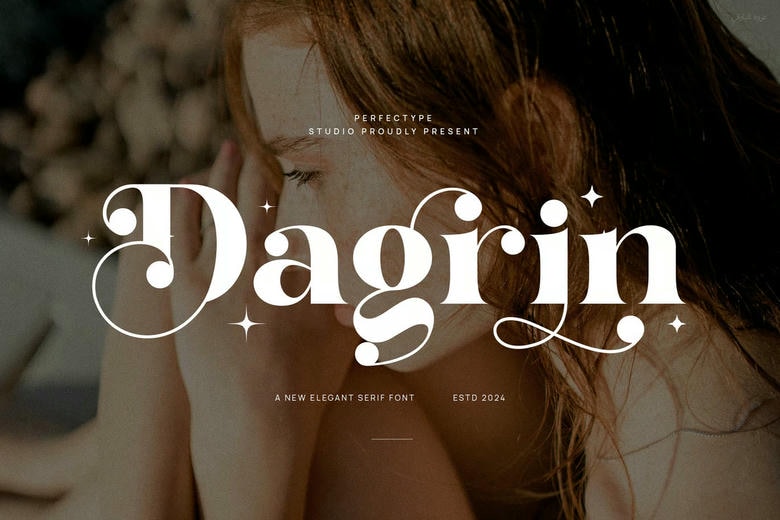
Dargin Font
Dargin is a very elegant and classy font for all branding and logo designs. This type of Serif font is made with elegance and luxury, so it is perfect for all your design uses. This type of font is perfect for your various needs such as branding projects, logos, social media posts, advertisements, labels, product packaging, photography, wedding designs, watermarks, invitation product designs, stationery and any project created with a high level
Dargin Elegant Serif Font